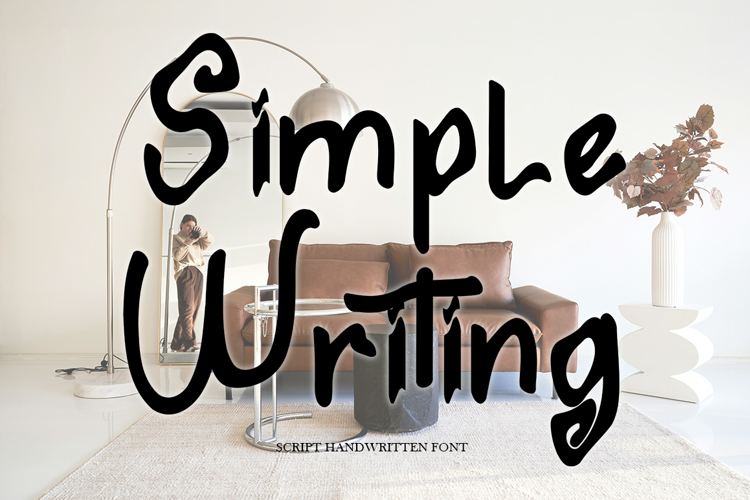
Beautiful Handwriting
Simple Writing is a sweet and cursive handwriting font. This soft font will look beautiful on a variety of design ideas. It will add a fun and romantic touch to any of your projects! It is perfect for branding, logos, wedding favors, greeting cards, fashion, lookbooks, marketing promotions, and whenever you want your designs to look fancy and elegant yet casual.